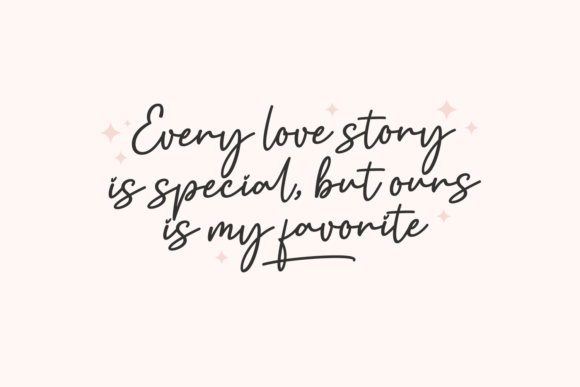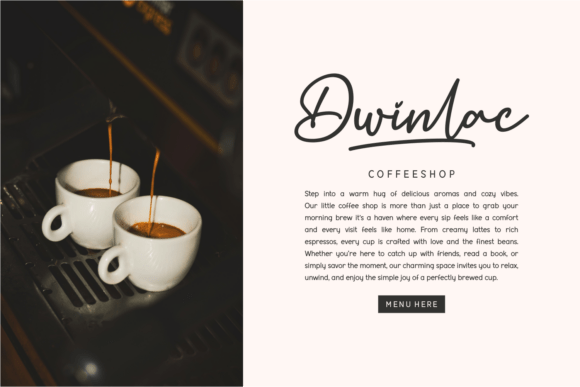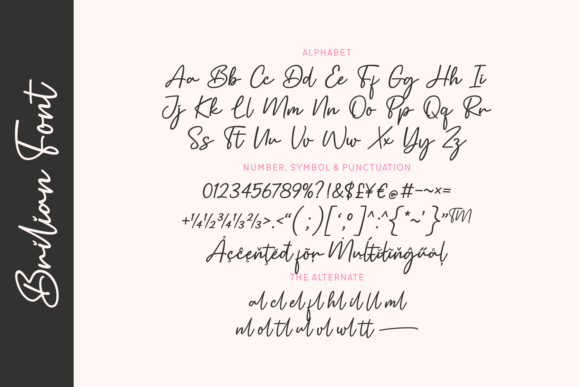
Introducing Brilian Font: The Epitome of Elegance and Whimsy
In the realm of typography, few fonts manage to strike a balance between elegance and playfulness. Brilian Font, however, achieves this delicate equilibrium with finesse. This stylish signature script font is not just a typeface; it’s an expression of charm, creativity, and sophistication. With its handwritten elegance and whimsical heart accents, Brilian Font is poised to elevate your designs to a new level of refinement and allure.
The Design Philosophy Behind Brilian
Brilian Font was crafted with a clear vision: to create a typeface that embodies the essence of modern elegance with a touch of whimsy. Its design is characterized by a modern, free-flowing stroke that gives it a dynamic and lively feel. The confident underline adds a dash of sophistication, making it perfect for a variety of applications, from personal branding to wedding stationery.
Key Features of Brilian Font
- Handwritten Elegance: Brilian boasts a fluid, handwritten style that brings a personal touch to any project.
- Whimsical Heart Accents: The addition of heart accents gives Brilian a playful and charming vibe, ideal for designs that require a bit of personality.
- Modern and Free-Flowing Stroke: The font’s stroke is designed to feel contemporary and effortless, making it versatile for various creative projects.
- Confident Underline: A distinctive underline adds a professional and stylish finish to the font, enhancing its usability in formal and informal contexts.
Brilian Font’s versatility is one of its standout features. Its lighthearted feel and expressive detail make it an excellent choice for several design applications:
Personal Branding
For entrepreneurs and creatives looking to establish a strong brand identity, Brilian offers a unique and memorable typographic solution. Its elegance and charm can help convey a brand’s personality and values effectively.
Social Media
In the digital age, social media presence is crucial. Brilian Font can help make your social media content stand out, adding a touch of sophistication and whimsy to your posts and stories.
Wedding Stationery
For weddings and other special occasions, Brilian provides a romantic and stylish typographic option. Its whimsical heart accents and elegant strokes make it perfect for wedding invitations, save-the-date cards, and more.
Feminine Product Packaging
Brilian’s charm and elegance also make it suitable for product packaging, especially for brands that cater to a feminine or lifestyle market. It can add a luxurious and personal touch to product labels and packaging materials.
Why Choose Brilian Font?
With so many fonts available, why choose Brilian? The answer lies in its unique blend of elegance, whimsy, and versatility. Brilian is not just a font; it’s a design statement. It can transform your text into a visually appealing narrative that captures attention and conveys your message with style.
Brilian Font is a stylish signature script font that can add a touch of elegance and whimsy to your designs. Whether you’re working on personal branding, social media content, wedding stationery, or product packaging, Brilian offers a unique typographic solution that can help your message shine. With its modern stroke, confident underline, and charming heart accents, Brilian is poised to become a favorite among designers and crafters looking for a font that combines sophistication with playfulness.
Embrace the charm and creativity of Brilian Font in your next project. Let its elegance and whimsy guide your typography choices and elevate your designs to new heights of beauty and effectiveness.